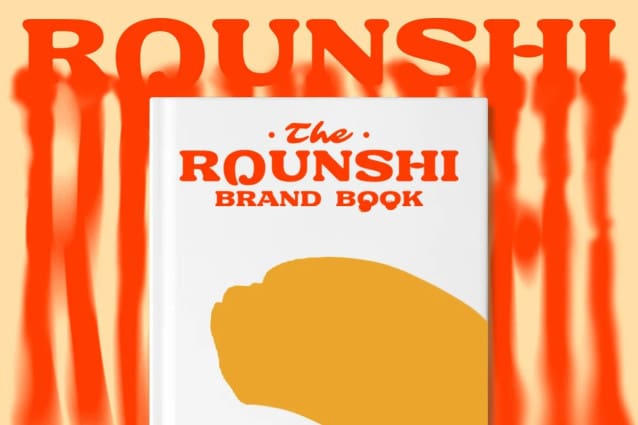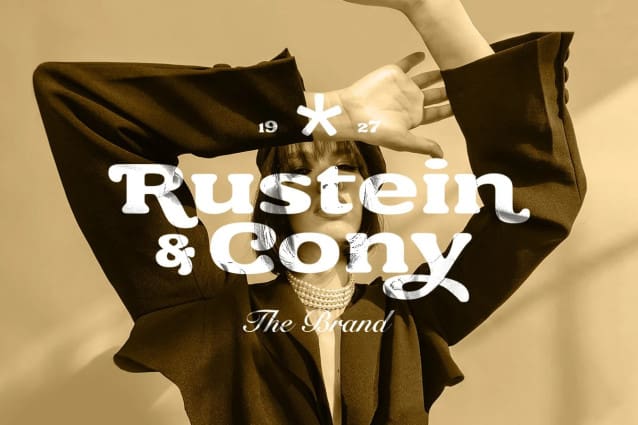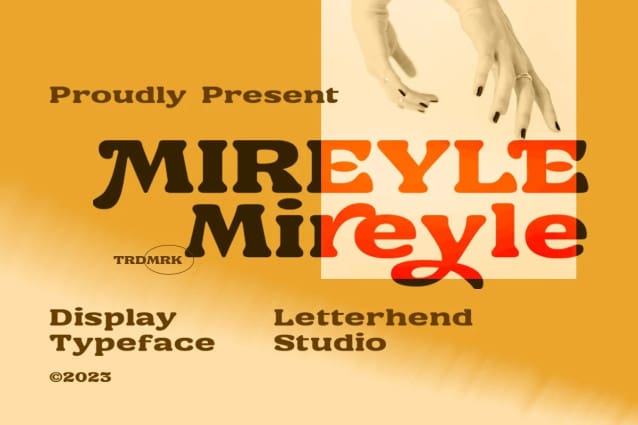
Mireyle Font
Mireyle Font add a classic of personality to your designs! This bold font makes it ideal for a variety of design projects, including posters, invitations, greeting cards, logos, and more. Whether you’re creating a children’s book or designing a catchy brand identity, this font is sure to bring a right answer.